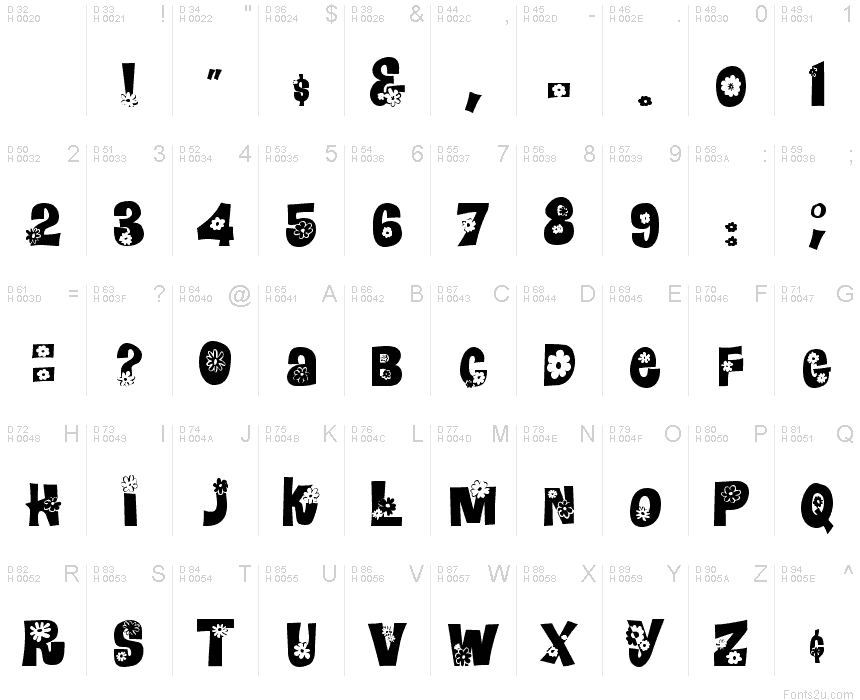
Blomster
Blomster font by Generated is a free decorative display typeface that looks like bold poster lettering punched through with playful flower cutouts. The heavy, blocky shapes feel almost like paper silhouettes, while the crisp floral holes add a breezy, retro-psychedelic twist. It has a strong, inky presence that pulls the eye instantly, so a few words go a long way.
Using Blomster, you can give spring campaigns, flower shop branding, festival posters, kids’ book covers, greeting cards, packaging, and DIY craft prints a cheerful, handmade vibe. This free font shines at larger sizes where the floral details stay clear and punchy. For balance, pair Blomster with a clean geometric sans in body text and let these chunky letters handle the headlines or logotypes.